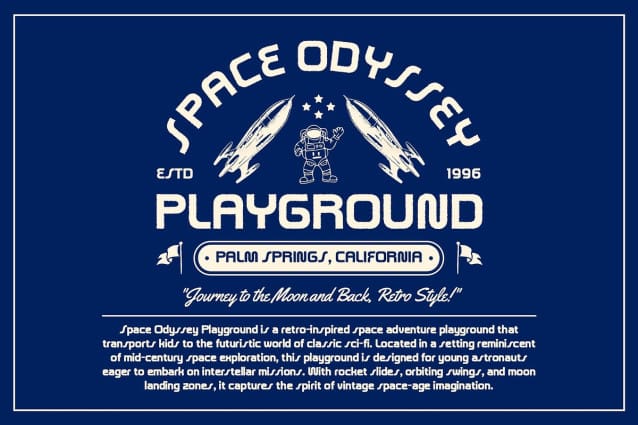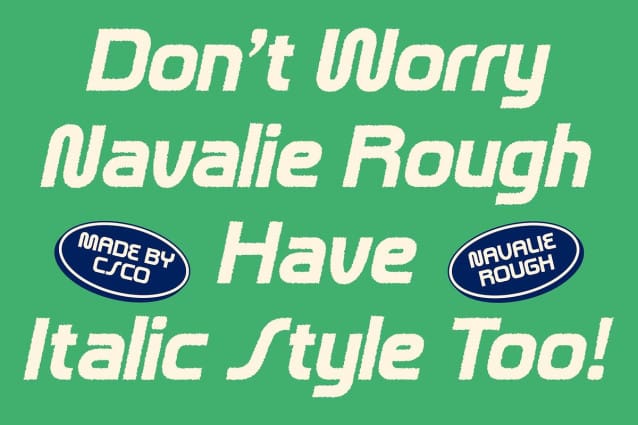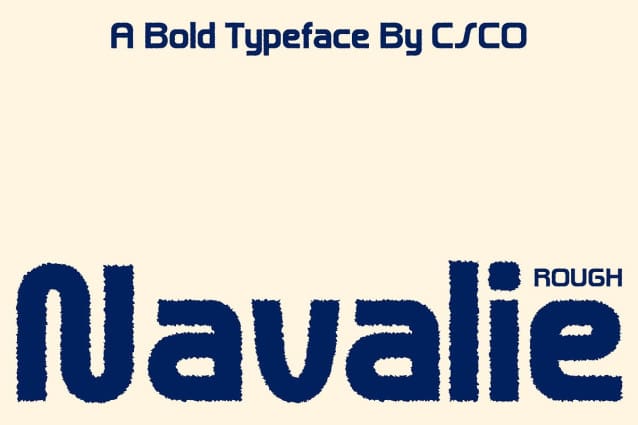
Navalie Rough Font
Navalie Rough Font is a modern sans serif font characterized by its bold geometric shapes and striking rough texture, creating a contemporary appearance that captures attention. With its strong lines and dynamic forms, this font is designed to stand out in any design project, making it an excellent choice for those who seek to make a bold statement.
Geometric Shapes for Strong Visibility The sturdy design of Navalie Rough ensures exceptional visibility, allowing it to shine in various applications such as branding, signage, and promotional materials. Its clean and geometric letterforms provide clarity while maintaining an impactful presence, making it suitable for both digital and print designs where legibility is key.
Rough Texture for Unique Character The rough texture applied to Navalie Rough adds a layer of unique character that enhances its appeal. This artistic effect creates a sense of depth and intrigue, making the font ideal for designs that aim for an edgy, unconventional look. Whether you’re aiming for a rugged style or a more playful artistic touch, this font delivers a captivating visual experience.